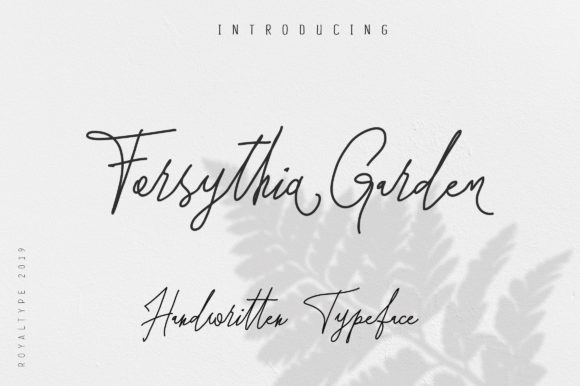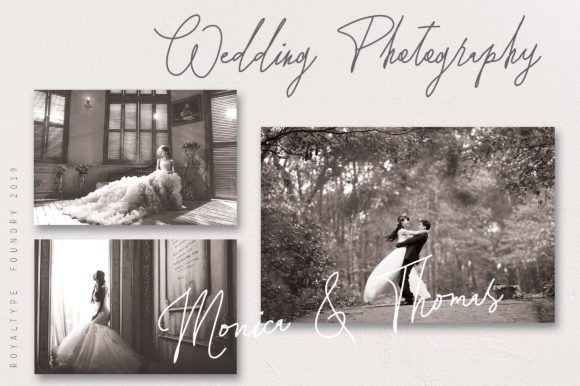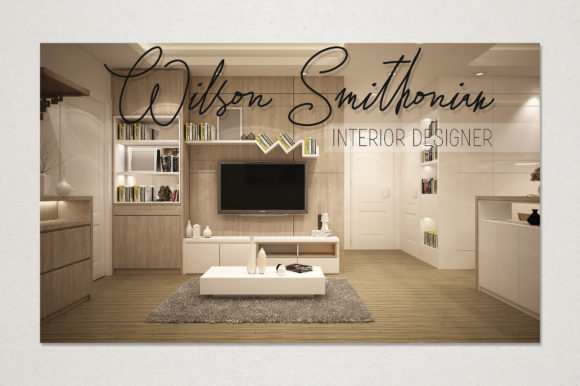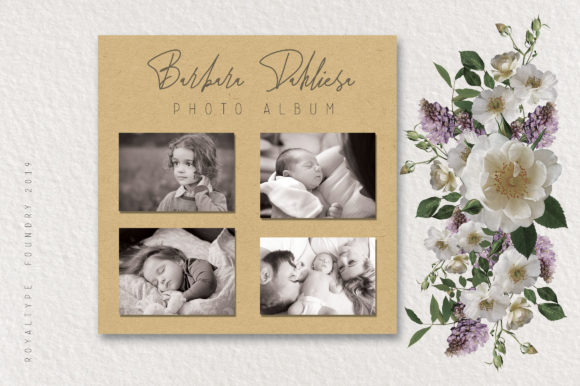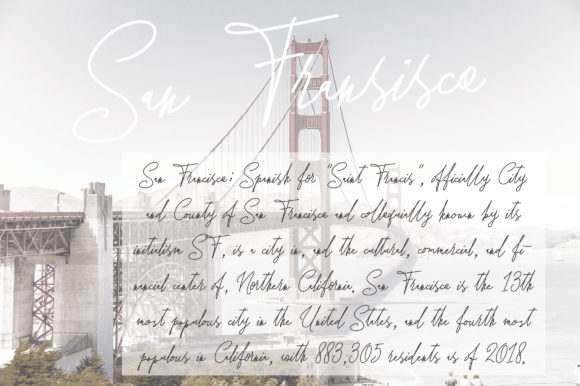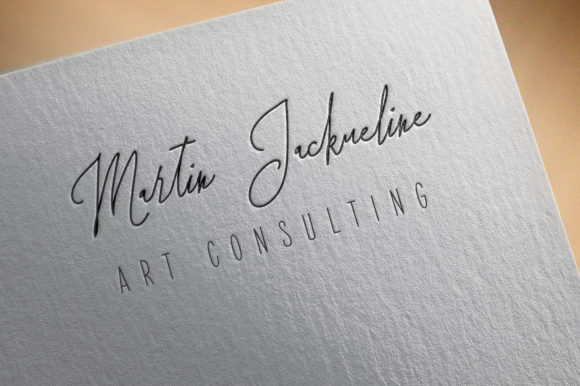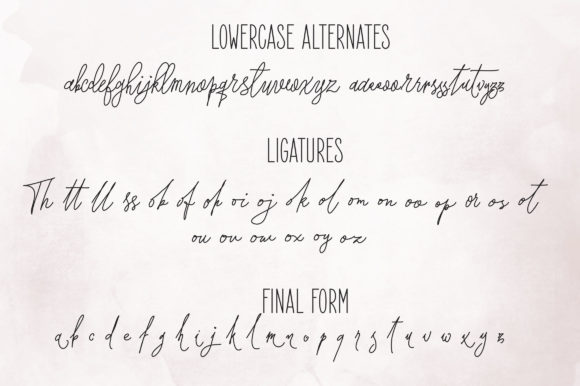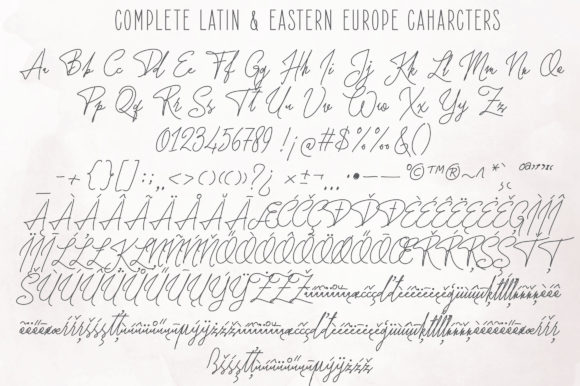
Forsythia Garden Font
About Forsythia Garden Font
Forsythia Garden is a signature typeface named after the a beautiful flower. Get inspired by its luxurious curves!